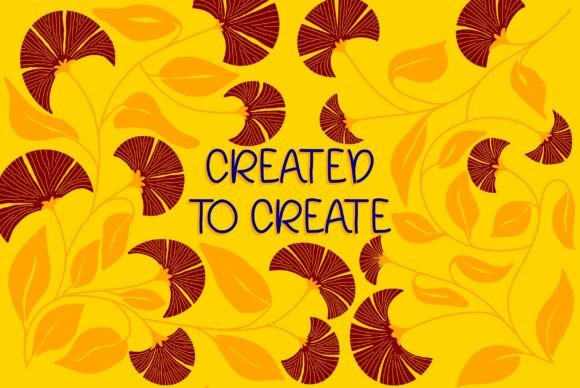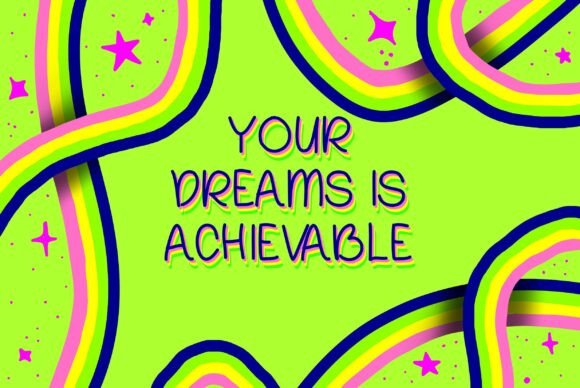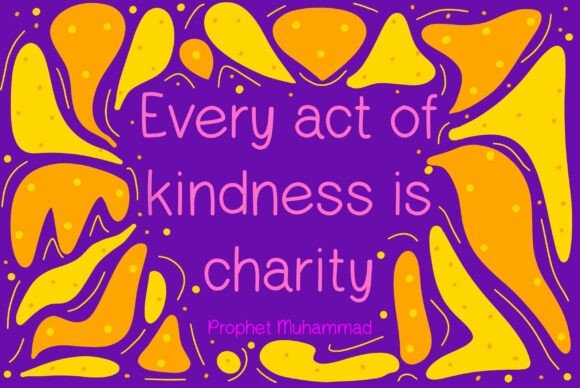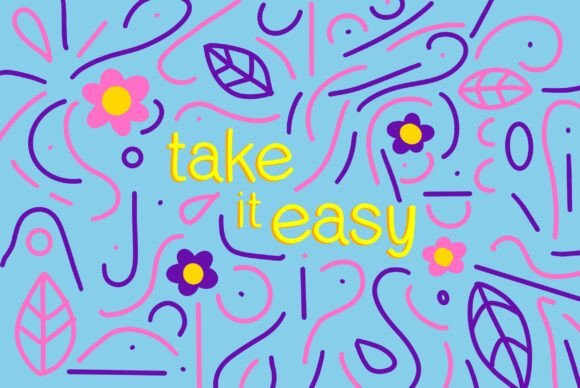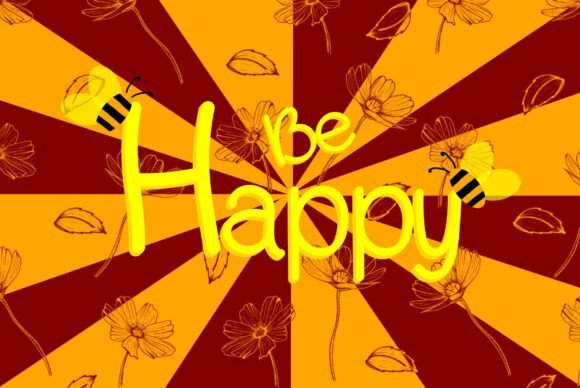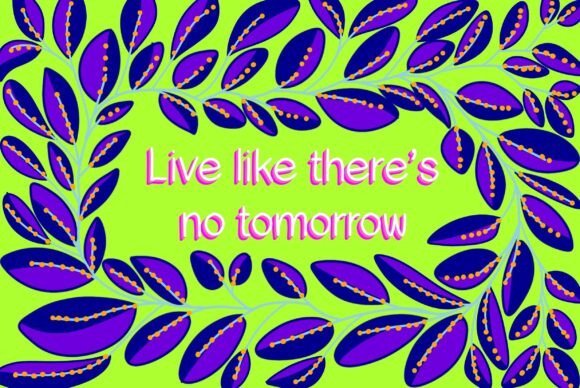
Bingar Font: Add a Burst of Joy to Your Designs
Are you looking for a font that can bring a touch of playfulness and happiness to your designs? Look no further than Bingar, a bright and playful handwritten sans font that’s perfect for creating eye-catching invitations, cheerful posters, uplifting branding, and more. In this article, we’ll explore the features and benefits of Bingar, and show you how to make the most of this fun and versatile font.
What is Bingar Font?
Bingar is a soft and smooth handwritten sans font that’s designed to radiate happiness. With its round edges and playful vibe, Bingar brings a feeling of warmth and friendliness to every letter. This font is perfect for designers and crafters who want to add a touch of personality to their projects, and create a lasting impression on their audience.
Key Features of Bingar Font
- Playful and Handwritten: Bingar is a handwritten sans font that’s designed to be playful and fun. Its soft and smooth strokes make it perfect for creating eye-catching designs that stand out.
- Round Edges: The round edges of Bingar give it a friendly and approachable feel, making it perfect for designs that need a touch of warmth and personality.
- Versatile: Bingar is a versatile font that can be used for a wide range of projects, from invitations and posters to branding and digital designs.
- Easy to Read: Despite its playful nature, Bingar is easy to read and understand, making it perfect for designs that need to communicate a message clearly.
How to Use Bingar Font
Bingar is a versatile font that can be used in a variety of ways. Here are some ideas to get you started:
- Invitations: Use Bingar to create eye-catching invitations for parties, weddings, and other special events.
- Posters: Create cheerful posters for advertising, promotions, or events using Bingar.
- Branding: Use Bingar to create a playful and friendly brand identity for your business or product.
- Digital Designs: Use Bingar to create engaging digital designs, such as social media graphics, blog posts, and email newsletters.
Pairing Bingar with Colors
One of the best ways to make Bingar stand out is to pair it with bright and bold colors. Here are some tips for pairing Bingar with colors:
- Bright and Bold: Pair Bingar with bright and bold colors to create a lively and energetic look.
- Pastel Colors: Soft pastel colors can create a sweet and playful look when paired with Bingar.
- Neutral Colors: Pair Bingar with neutral colors, such as white or gray, to create a clean and modern look.
Tips and Tricks for Using Bingar
Here are some tips and tricks for using Bingar:
- Experiment with Sizes: Experiment with different font sizes to create visual interest and hierarchy in your designs.
- Use it with Images: Use Bingar with images to create a playful and engaging design.
- Add a Personal Touch: Use Bingar to add a personal touch to your designs, and make them more relatable to your audience.
Bingar is a fun and versatile font that’s perfect for designers and crafters who want to add a touch of playfulness and happiness to their designs. With its round edges and playful vibe, Bingar brings a feeling of warmth and friendliness to every letter. Whether you’re designing for print or digital, Bingar is a great choice for creating eye-catching designs that stand out. So why not give Bingar a try, and see how it can bring a burst of joy to your designs?